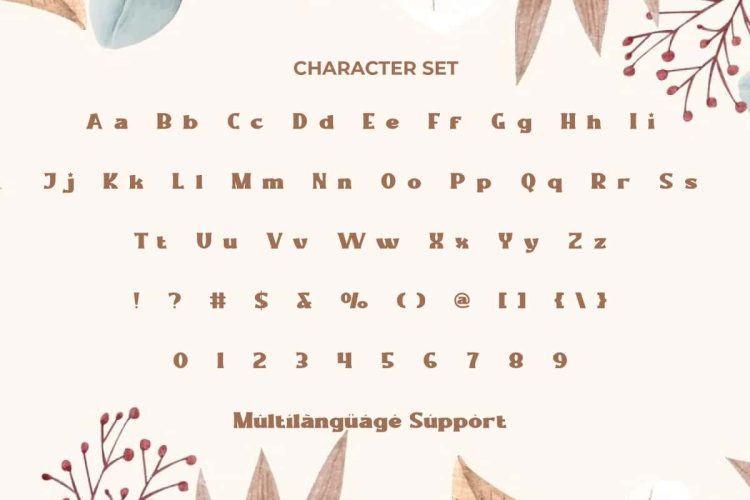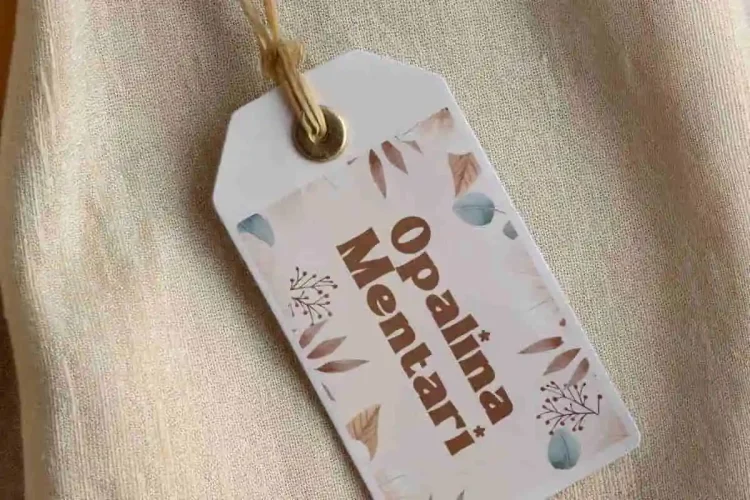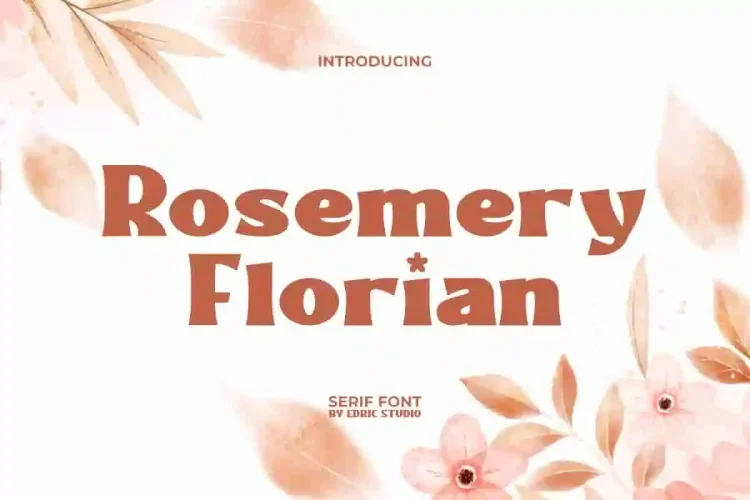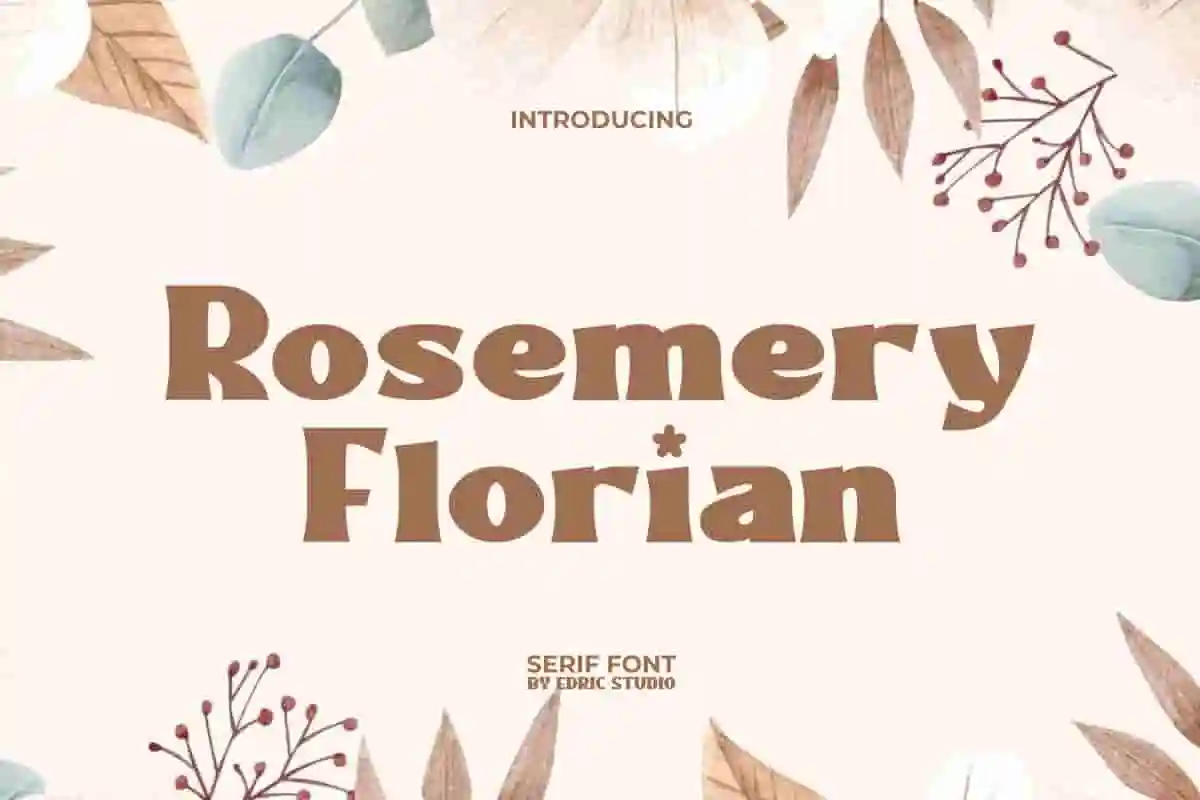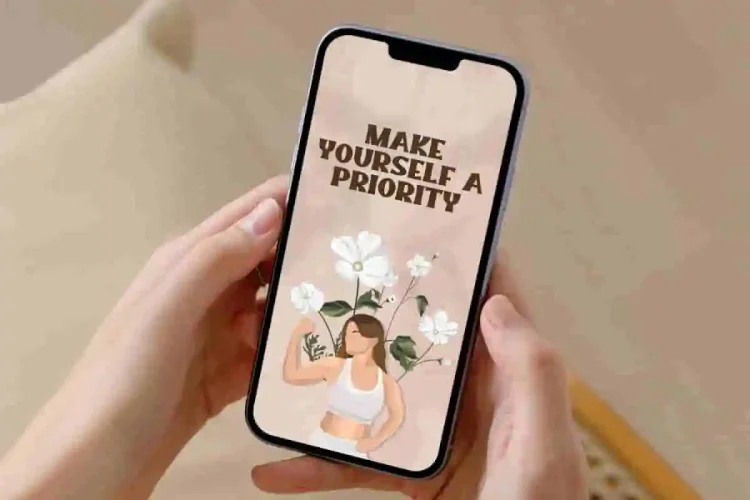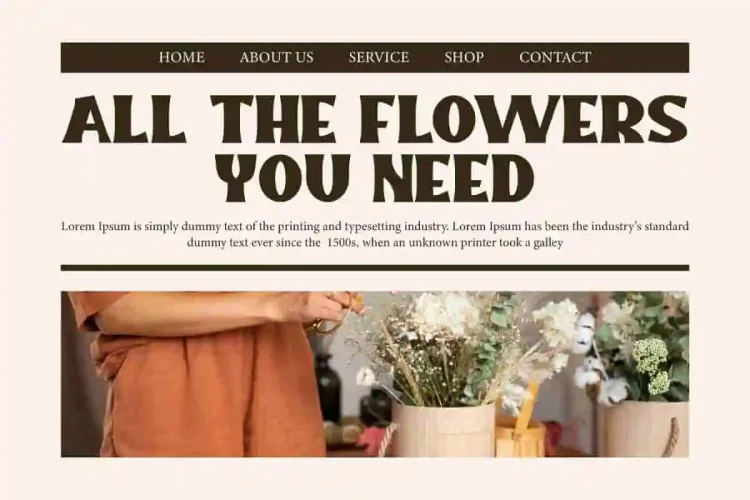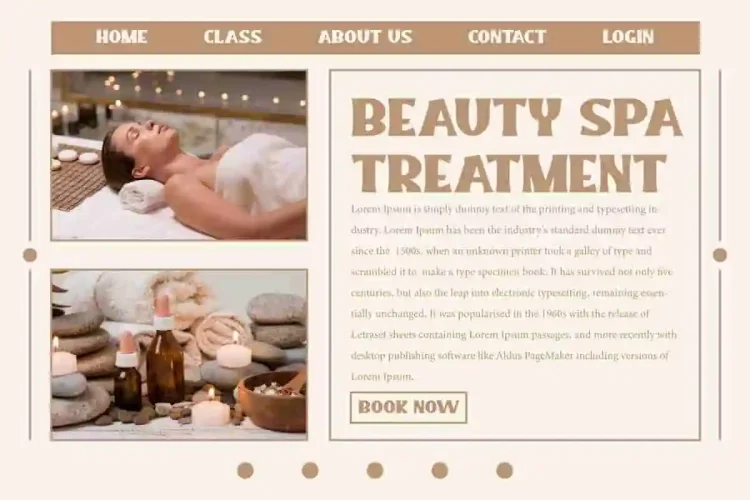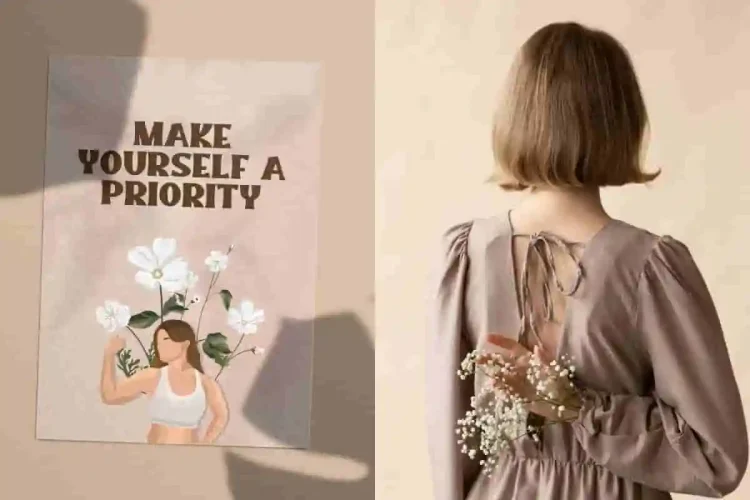
Rosemery Florian Beautiful Font
Rosemery Florian Font is a playful fat bold serif display font with an fun style that features a beautiful rosemary flower theme. The beautiful shape and design are specially crafted to fit your editing creations, so this perfect font can be used in apps, blogs, brand logo, brochure, covers, embossed design, flyer, headers, headline, label product, poster, template, title, website, and much more.
Rosemery Florian Font includes a complete set of Uppercase and Lowercase letters, Numbers, Punctuation, and Symbols. This type of font has a unique style because the combination of elegant nuances and the thickness of the font is very fitting. Include this font in your collection or your creative designs, such as advertising, beauty spa, digital marketing, fashion, florist, publisher, wedding, etc.